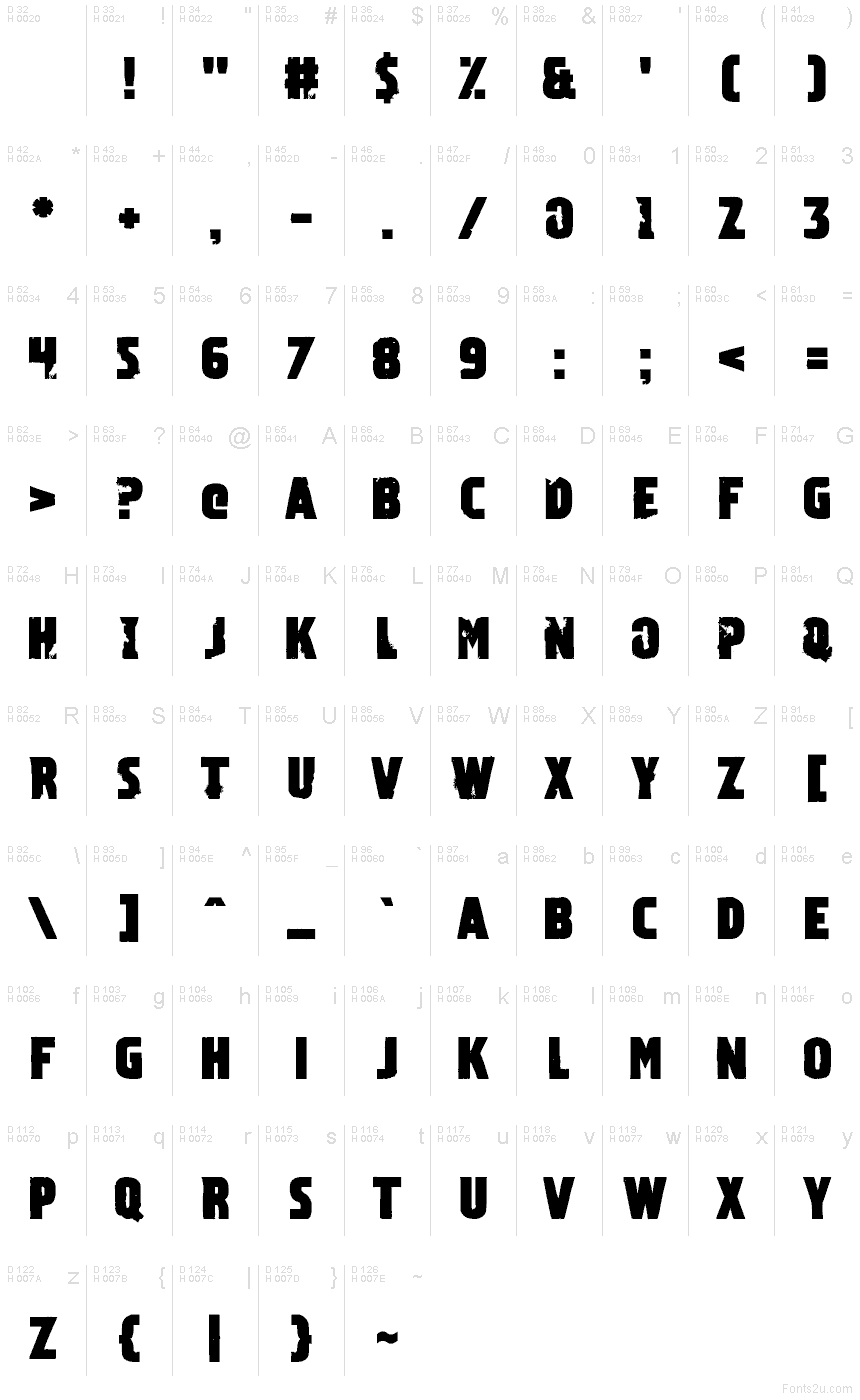
Devious Road
Devious Road font by Chequered Ink is a bold, artistic display font with an eroded, distressed style. The condensed letters of this edgy and impactful typeface showcase an urban and rugged influence. Its strong presence leaves no one indifferent while the artistic touch shows a love of the graphic world.
Free Devious Road is simply ideal for posters and headlines; however, think of using it in any project that crosses your mind! Book covers, advertisements, signage–projects in digital or print media. Try the font on websites as well (in headings only perhaps!) or include it within mobile apps.